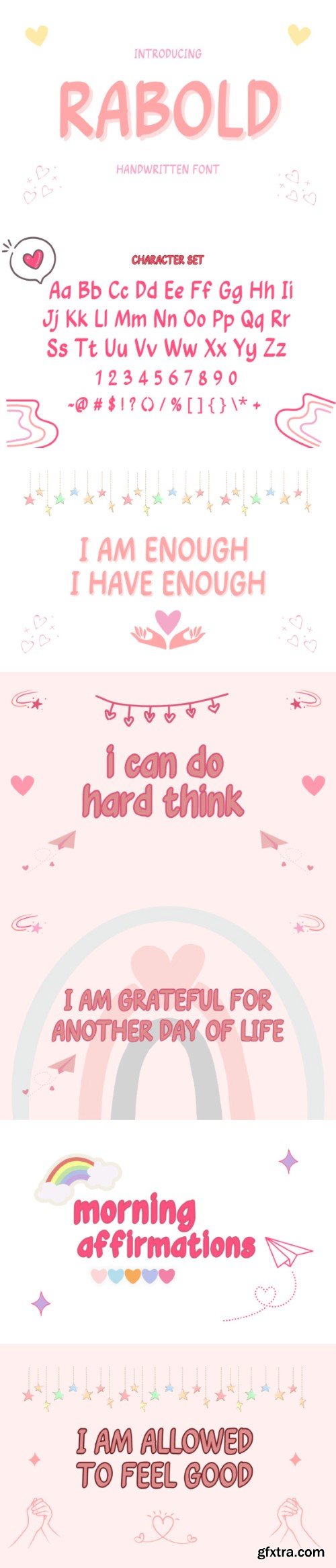
罗巴德字体
Rabold is a fun and quirky handwritten font. Whatever the topic, this font will be a wonderful asset to your font library, as it has the potential to enhance any creation.